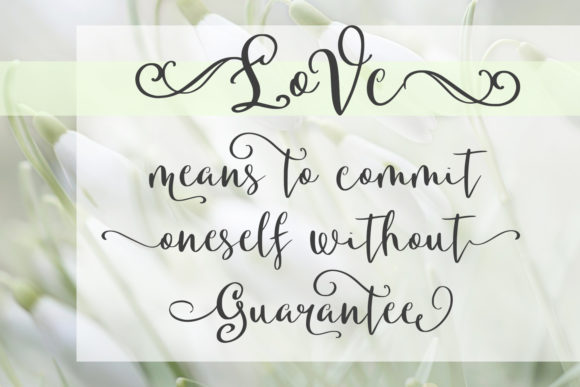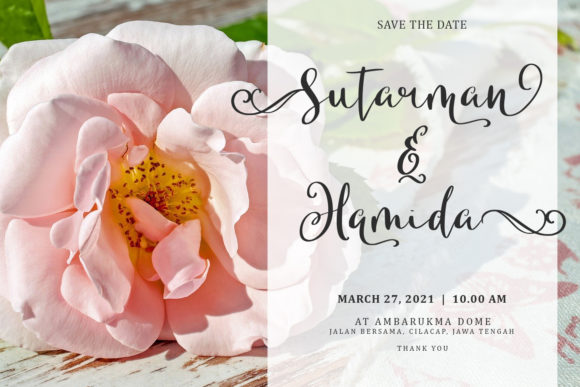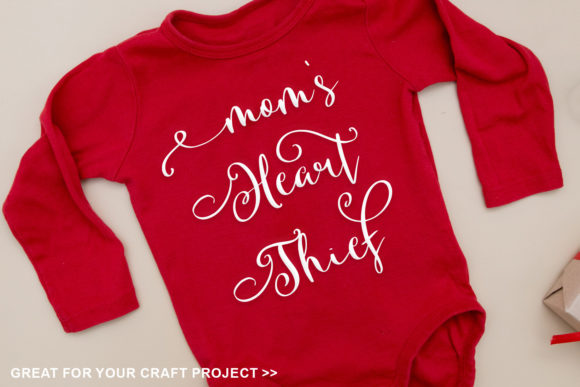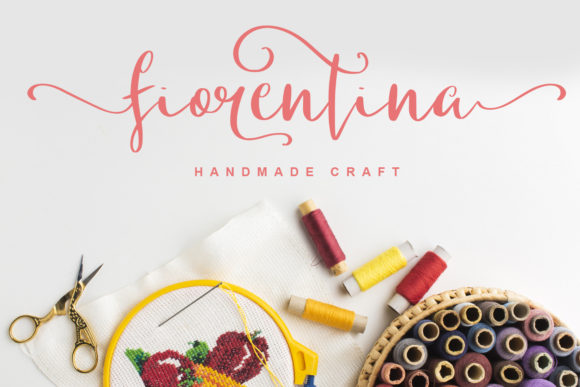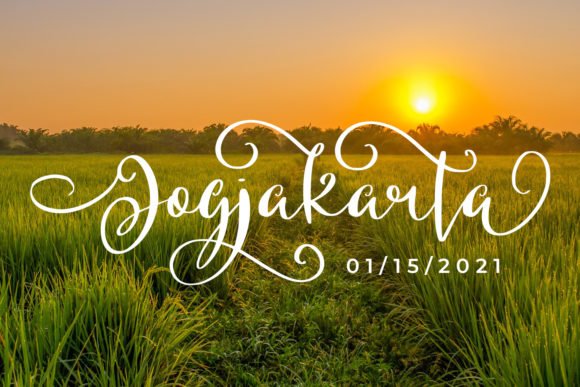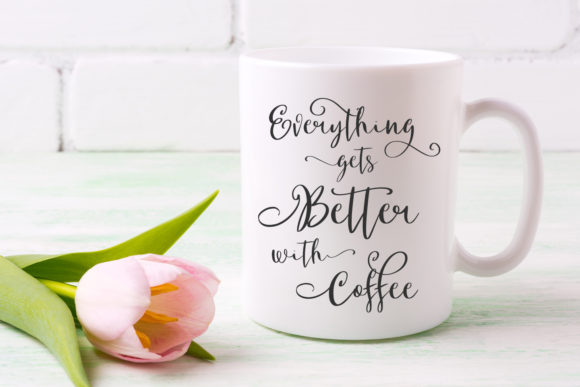
Introducing Faradiba Font: The Epitome of Romance and Sophistication
In the realm of typography, few fonts manage to evoke the essence of romance and sophistication as effortlessly as Faradiba. This exquisite script font has been turning heads with its ravishing appearance, making it a go-to choice for a wide array of design projects, from formal and informal to casual designs. What sets Faradiba apart is not just its aesthetic appeal but also its functionality, being PUA encoded. This feature ensures that accessing all the glyphs and swashes is a breeze, offering designers an unparalleled level of creativity and flexibility.
The Aesthetic Appeal of Faradiba
Faradiba’s design is a masterclass in elegance. Its script style is reminiscent of traditional calligraphy, with flowing lines and graceful curves that add a touch of sophistication to any project. Whether you’re working on a wedding invitation, a luxury brand logo, or a casual blog post, Faradiba brings a level of refinement that’s hard to match. The font’s romantic vibe is perfect for designers looking to add a personal touch to their work, making it ideal for projects that require a bit of emotional resonance.
One of the standout features of Faradiba is its versatility. This font isn’t limited to formal designs; it’s equally at home in informal or casual settings. For crafters and designers who work on a variety of projects, having a font that can seamlessly transition from one style to another is invaluable. Faradiba’s adaptability means you can use it for anything from crafting a stylish social media post to designing a sophisticated business card, all while maintaining a consistent aesthetic.
The Advantage of PUA Encoding
PUA (Private Use Area) encoding is a game-changer for designers. It allows for the inclusion of additional characters, glyphs, and swashes that aren’t available in standard fonts. Faradiba, being PUA encoded, offers users a vast library of alternate characters and swashes. This means you have the freedom to experiment with different styles and combinations, ensuring your design is truly one-of-a-kind. The ease of access to these glyphs and swashes not only streamlines the design process but also opens up new creative avenues.
For designers and crafters, finding a font that meets all their needs can be a challenge. Faradiba ticks all the right boxes. Its unique blend of romance, sophistication, and versatility makes it an indispensable tool in any designer’s toolkit. Whether you’re a professional designer working on high-end clients or a crafter creating personalized gifts, Faradiba offers the perfect combination of style and functionality.
Tips for Using Faradiba
To make the most of Faradiba, here are a few tips:
- Experiment with Swashes: Don’t be afraid to try out different swashes and glyphs. They can add a unique touch to your designs.
- Mix and Match: Combine Faradiba with other fonts for interesting contrasts. Its script style pairs well with sans-serif fonts for a modern look.
- Pay Attention to Kerning: As with any script font, kerning is crucial. Take the time to adjust the spacing between letters for a more polished look.
Faradiba is more than just a font; it’s a design experience. Its romantic and sophisticated appeal, coupled with its versatility and PUA encoding, makes it a valuable asset for any designer or crafter. Whether you’re looking to add a touch of elegance to your project or simply want a font that can keep up with your creative demands, Faradiba is an excellent choice. With Faradiba, the possibilities are endless, and the results are sure to be nothing short of stunning.